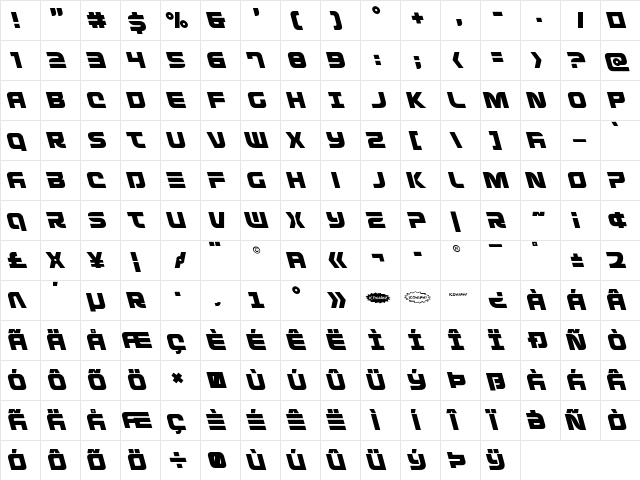
Defcon Zero Leftalic Italic Font Preview
Defcon Zero Leftalic Italic
Defcon Zero Leftalic Italic Font Details
Design Context for Defcon Zero Leftalic Typeface
Defcon Zero Leftalic is a composed and adaptable typeface that performs quietly and consistently across a wide range of design contexts. Its italic angle brings a sense of urgency and motion to the letterforms.
Pro Tip: Use Defcon Zero Leftalic for emphasis, pull quotes, and subheadings where its slanted energy can add rhythm to the layout.